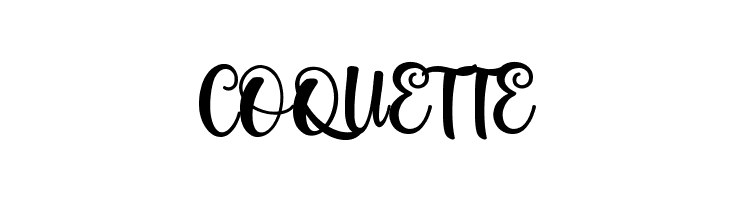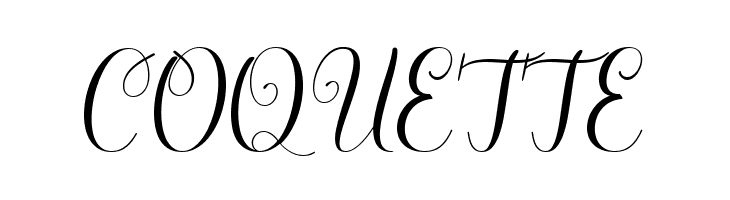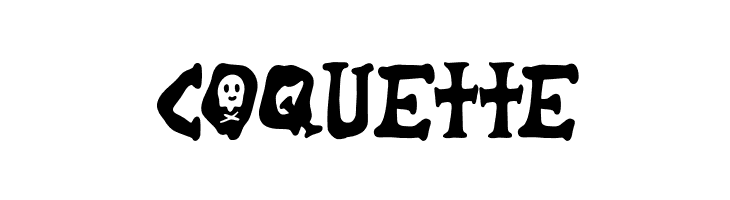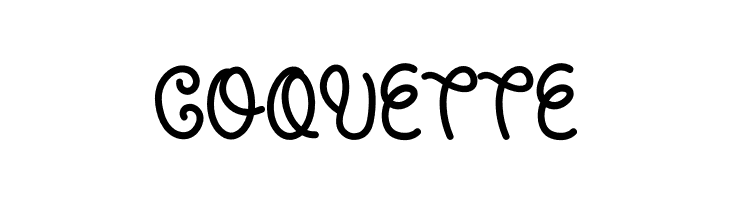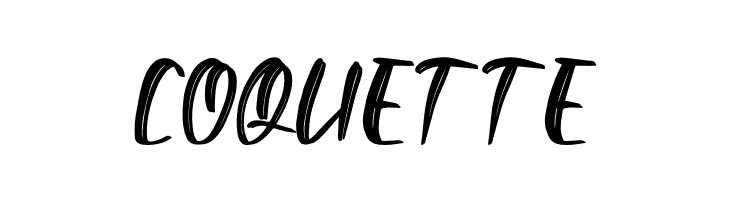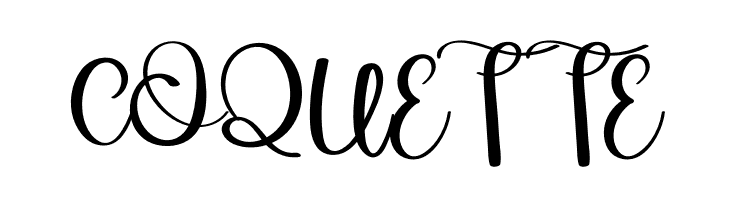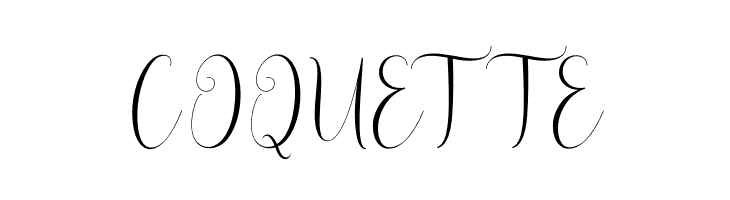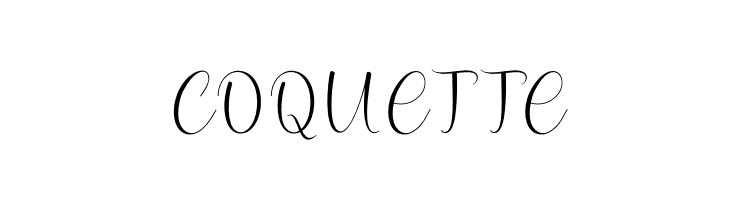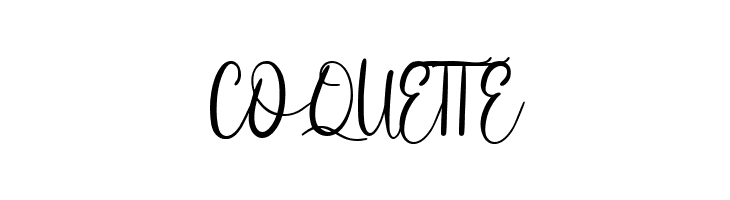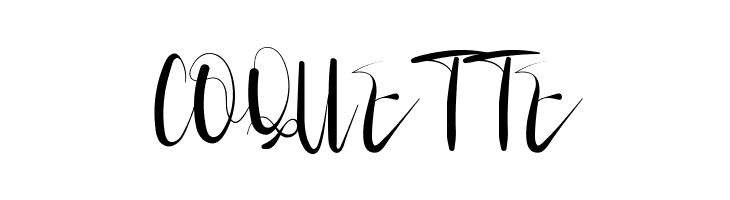
A playful, elegant script font with flowing, interconnected letters.
A playful, handwritten font with bold, smooth strokes and a casual, cursive style.
A playful and elegant handwritten font with flowing cursive letterforms.
An elegant, flowing script font with graceful, interconnected characters.
A bold, handwritten font with a brush-like texture and dynamic style.
A whimsical script font with elegant loops and playful strokes.
A playful, handwritten-style font with a casual and friendly appearance.
A playful, handwritten font with smooth, flowing lines and rounded edges.
A playful handwritten font with smooth curves and a casual, friendly style.
A modern, elegant script font with flowing, cursive letters and dynamic contrast.
A playful and elegant handwritten script font with dynamic strokes.
A cursive, italic font with elegant, flowing strokes and a handwritten appearance.
A playful and elegant script font with a handwritten style.
A flowing, cursive font with elegant, interconnected letters and dynamic stroke variations.
A modern, handwritten font with elegant, flowing characters.
A playful, handwritten font with quirky loops and curves.
A playful, informal handwritten font with irregular strokes and a casual vibe.
A lively, flowing script font with elegant cursive letterforms.
A flowing, cursive font with an elegant and dynamic handwritten style.
A playful, spooky font with monster-like characteristics and skull motifs.
A playful, spooky font with skull and bone elements, perfect for Halloween themes.
A bold, handwritten font with a lively and energetic brush-like style.
A playful, handwritten font with a casual and dynamic style.
An elegant script font with flowing, cursive letterforms and high contrast strokes.
A playful, casual handwritten font with smooth, rounded edges.
An elegant, flowing script font with graceful curves and thin strokes.
A bold, flowing script font with elegant curves and decorative flourishes.
A graceful script font with elegant loops and high contrast strokes.
An elegant script font with flowing, interconnected letters and a calligraphic style.
An elegant, flowing script font with a sophisticated and graceful appearance.
A playful, hand-drawn script font with smooth curves and interconnected letters.
An elegant script font with flowing curves and sophisticated details.
A lively, expressive handwritten font with flowing, cursive letters.
A bold, brush-style font with dynamic and lively strokes.